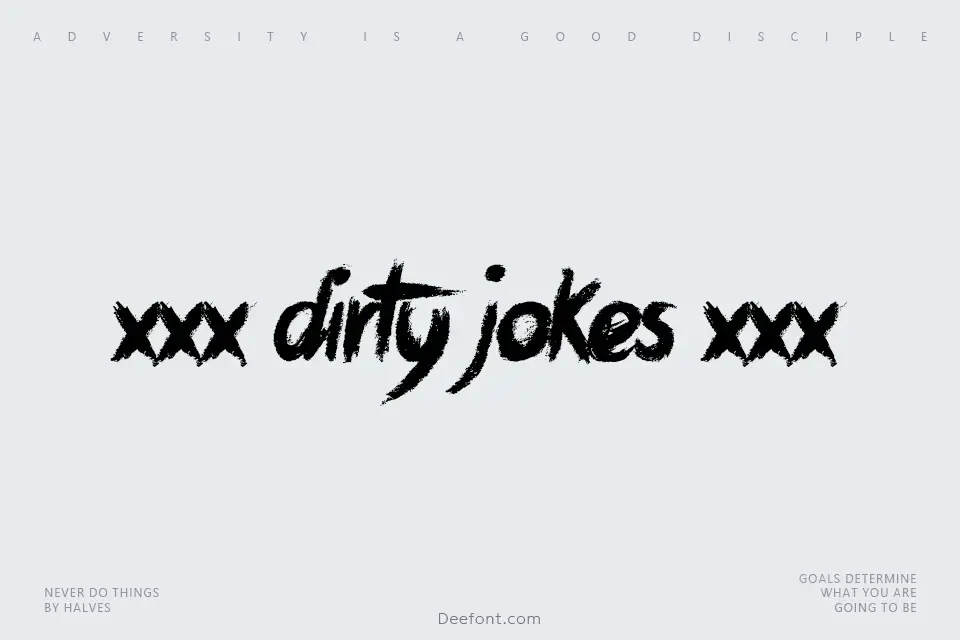
xxx Dirty Jokes xxx Font
xxx Dirty Jokes xxx is an expressive display script font that combines edgy aesthetics with playful character. Featuring 236 meticulously crafted glyphs, this typeface delivers bold, distinctive letterforms ideal for Halloween event posters, horror-themed merchandise, tattoo designs, and creative label artwork. The font’s rough, energetic strokes convey a contemporary trash aesthetic perfect for party invitations, band merchandise, podcast artwork, and humorous graphic design applications. Its unique charm makes it particularly suitable for projects requiring personality and edge without sacrificing readability across digital and print media.